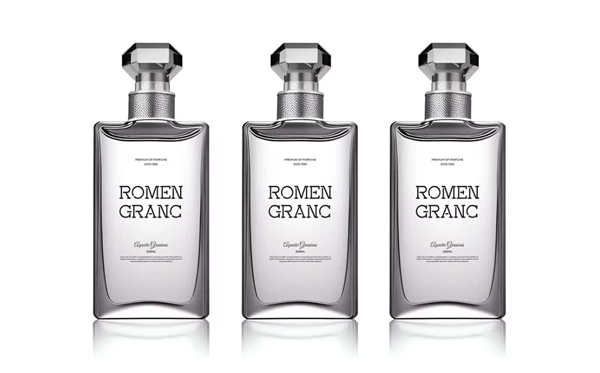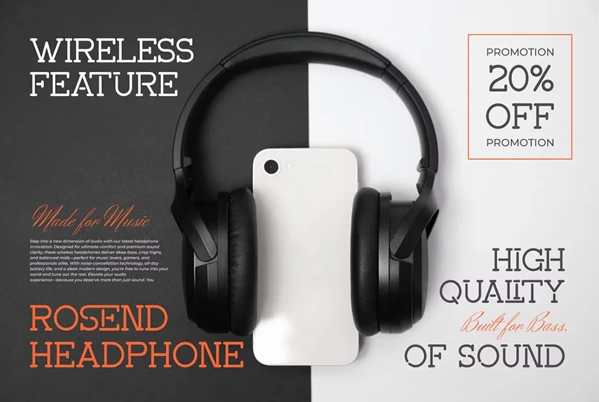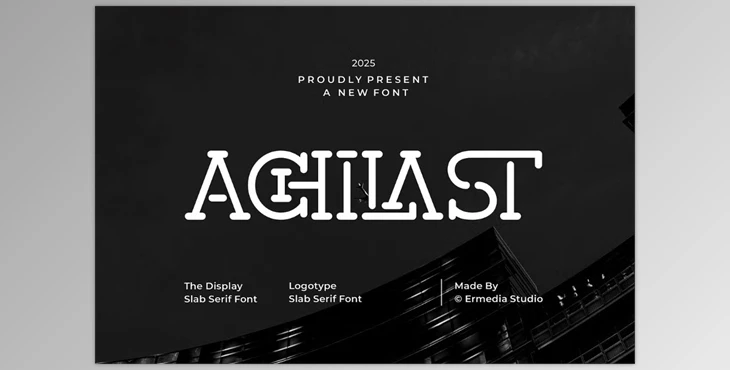
Achilast Modern Slab Serif Font:
The Achilast Modern Slab Serif Font stands out as an elegant and up-to-date typeface, adequately fitting for different design projects. It is perfect for sophisticated branding and logos because of its sleek and futuristic design. This font will make beautiful characters and stylish ligatures that will add class and a modern touch to invitation cards as well as to titling movies and books. It is a smooth, serif style, and its versatility makes it effortlessly suitable for any designer aiming to refine their work with sophistication, as well as adding a timeless touch, making it a must-have font.
Some great features of Achilast Modern Slab Serif Font:
- Enhances design with stylish ligatures
- Lower and uppercase characters are included
- Numbers and punctuation are included